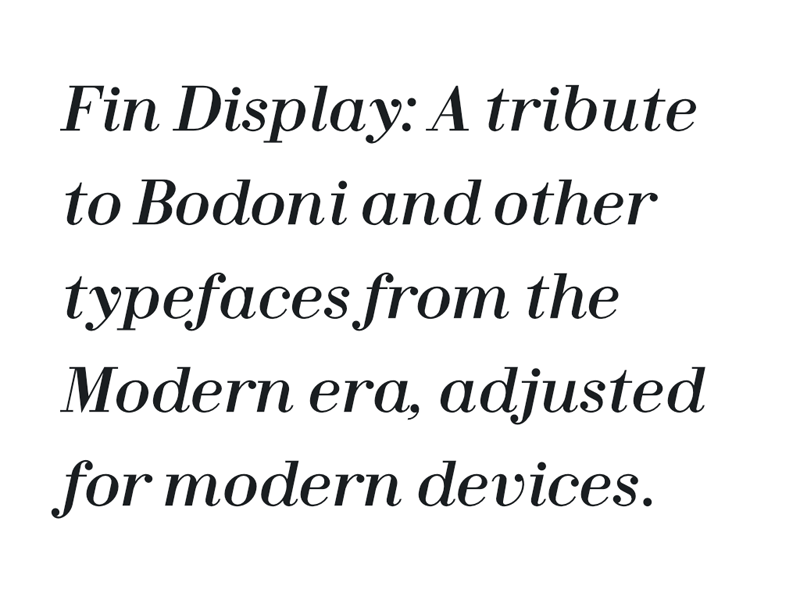
Font name: | Fin Serif Display |
Author: | J. Blake Harris |
Note by J. Blake Harris | |
A tribute to Bodoni and other typefaces from the Modern era, adjusted to be more readable on modern devices. |